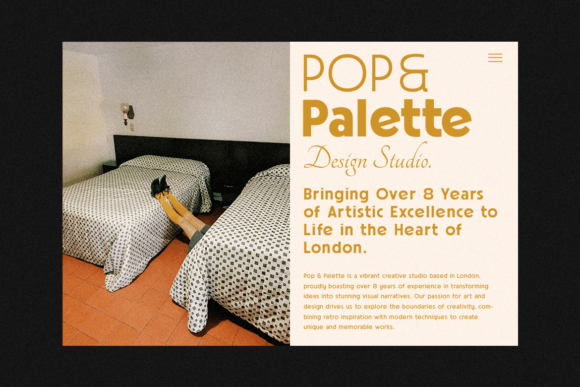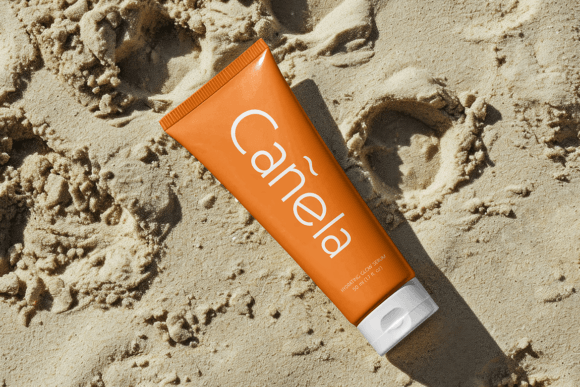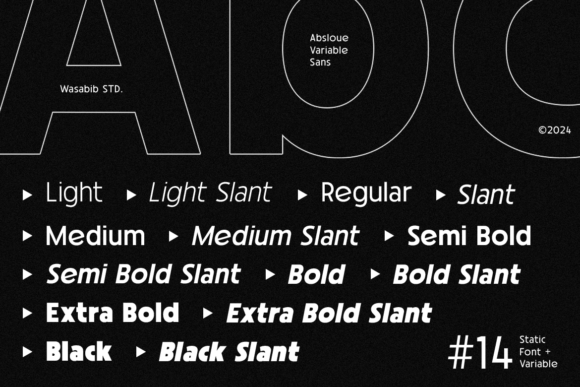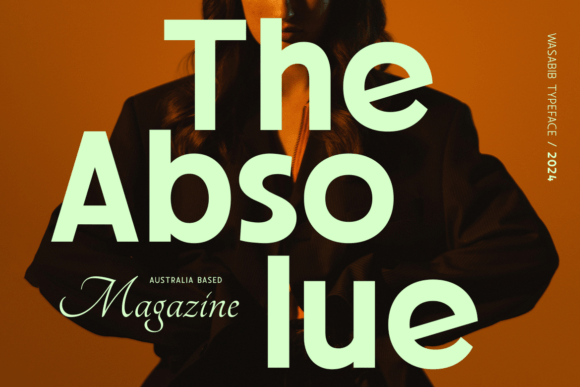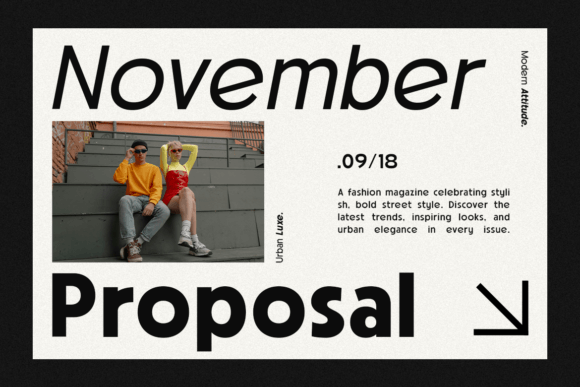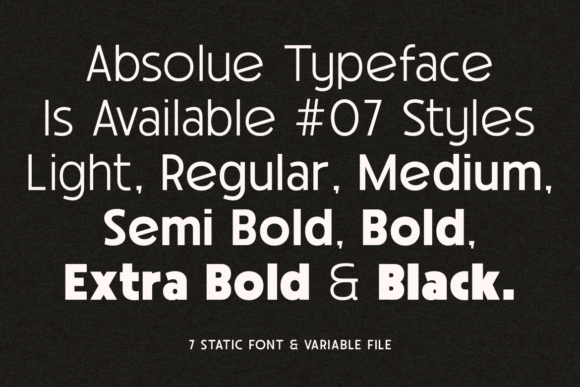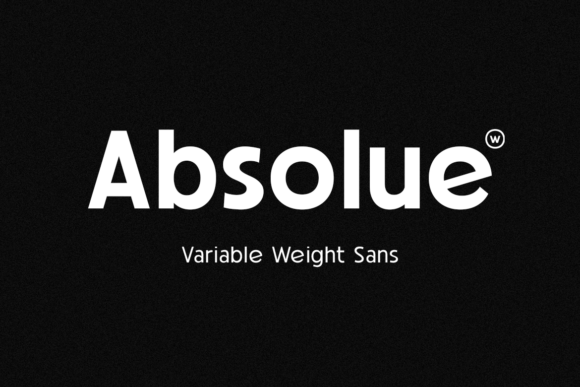
Introducing Absolue Font: The Ultimate Sans Serif Typeface for Modern Design
In the world of typography, finding the perfect font can be a daunting task. With so many options available, it’s essential to choose a typeface that not only looks great but also adapts to various design applications. This is where Absolue Font comes in – a versatile sans serif typeface that is revolutionizing the way designers approach typography.
What is Absolue Font?
Absolue is a cutting-edge sans serif typeface that comes in a variable font format. This means that it can be easily adjusted to suit different design needs, making it an incredibly flexible choice for designers. Whether you’re working on a branding project, logo design, headlines, website content, or book layouts, Absolue Font is the perfect companion.
The Benefits of Absolue Font
So, what makes Absolue Font so special? Here are just a few benefits that make it a top choice for designers:
- Clean and Modern Aesthetic: Absolue Font boasts a clean and modern design that brings a sense of sophistication and clarity to any project. Its sleek lines and minimalist approach make it perfect for designs that require a professional look and feel.
- Versatility: As a variable font, Absolue can be easily adjusted to suit different design applications. Whether you need a bold headline or a subtle body text, Absolue Font adapts seamlessly.
- Wide Range of Applications: From branding and logo design to website content and book layouts, Absolue Font is suitable for a wide range of design projects. Its adaptability makes it an excellent choice for designers who need a reliable typeface that can handle multiple tasks.
How to Use Absolue Font in Your Design Projects
Using Absolue Font in your design projects is easy. Here are a few tips to get you started:
- Branding and Logo Design: Use Absolue Font to create a bold and memorable brand identity. Its clean lines and modern aesthetic make it perfect for logos, business cards, and letterheads.
- Headlines and Titles: Absolue Font is ideal for headlines and titles, thanks to its bold and attention-grabbing design. Use it to create striking headlines that capture the reader’s attention.
- Website Content: Absolue Font is also suitable for website content, including body text and paragraphs. Its clean design and variable font format make it easy to read and adjust to different screen sizes.
- Book Layouts: For book layouts, Absolue Font offers a professional and elegant solution. Use it for titles, headings, and body text to create a cohesive and well-designed book.
Why Choose Absolue Font?
With so many typefaces available, why choose Absolue Font? Here are a few reasons why designers and crafters love Absolue:
- Unique Design: Absolue Font offers a unique design that sets it apart from other sans serif typefaces. Its clean lines, modern aesthetic, and variable font format make it a standout choice.
- Ease of Use: Absolue Font is incredibly easy to use, even for designers who are new to variable fonts. Its intuitive design and flexibility make it a joy to work with.
- High-Quality Typography: Absolue Font is designed with high-quality typography in mind. Its clean lines, precise kerning, and attention to detail make it perfect for designs that require a professional finish.
In conclusion, Absolue Font is a versatile sans serif typeface that is perfect for modern design projects. Its clean and modern aesthetic, adaptability, and wide range of applications make it an excellent choice for designers and crafters. Whether you’re working on a branding project, website content, or book layouts, Absolue Font is the ultimate typeface for typographic needs across various media.